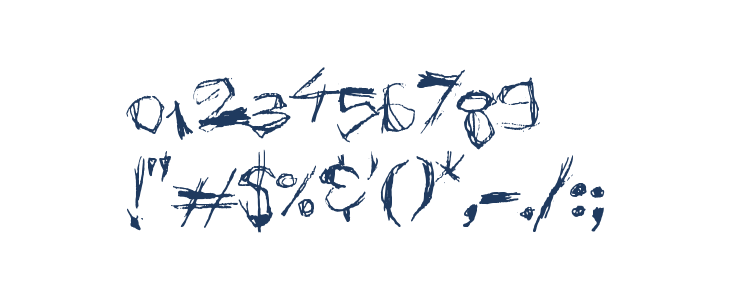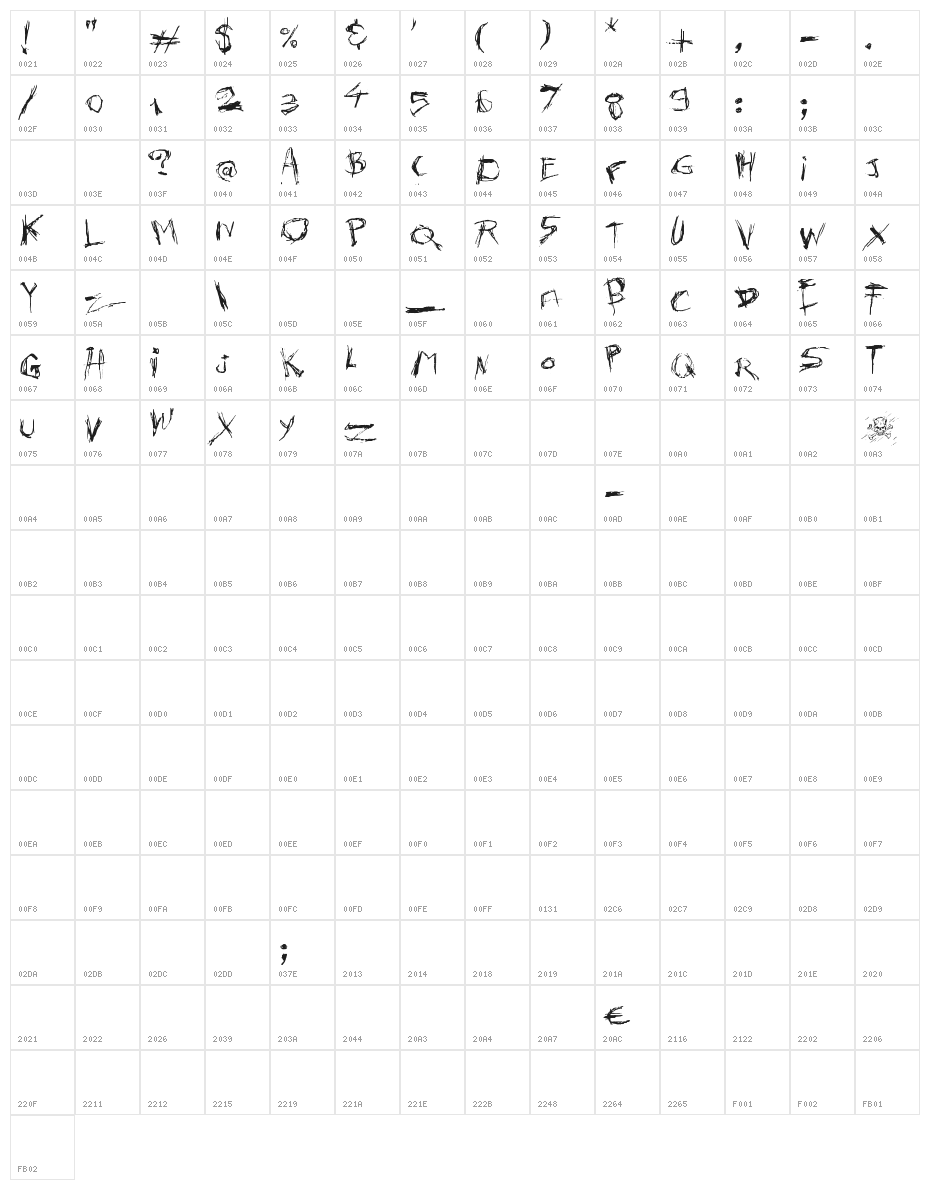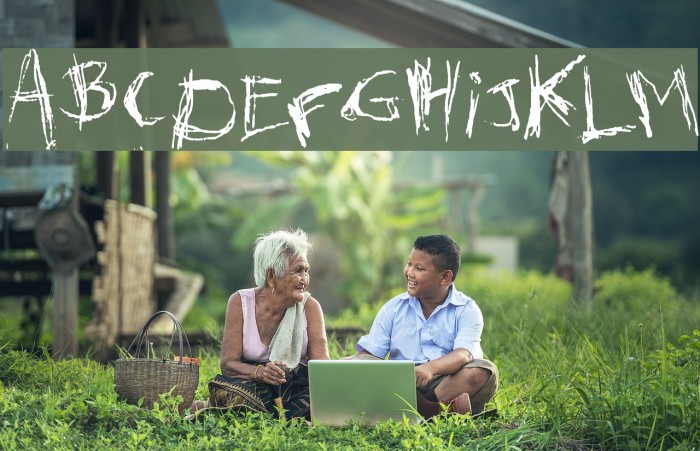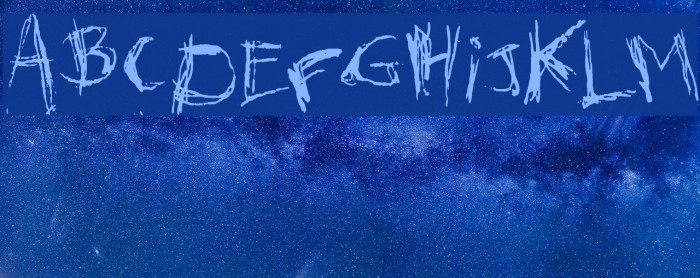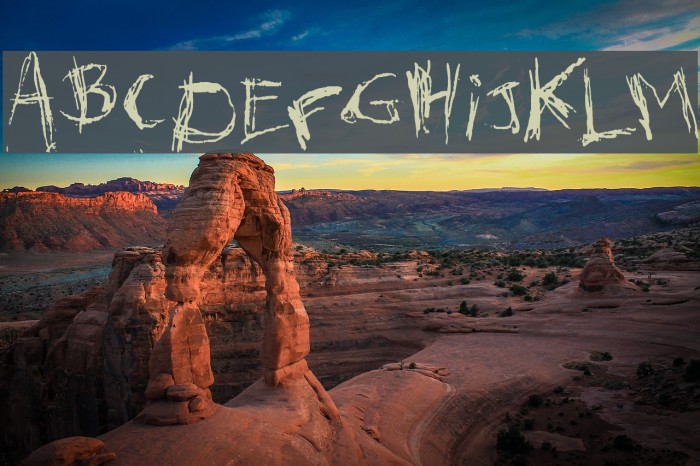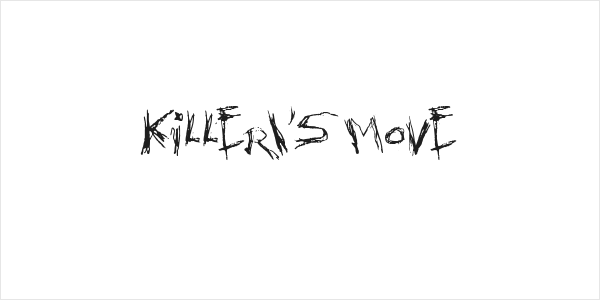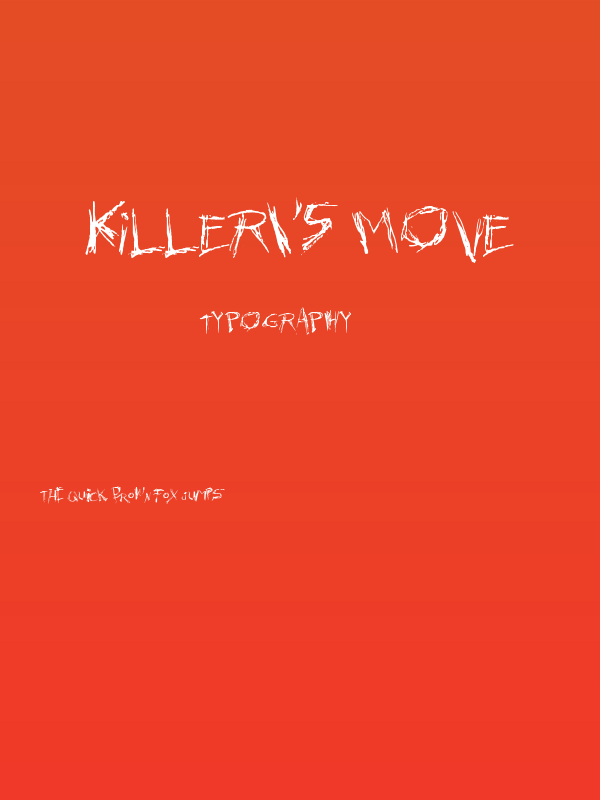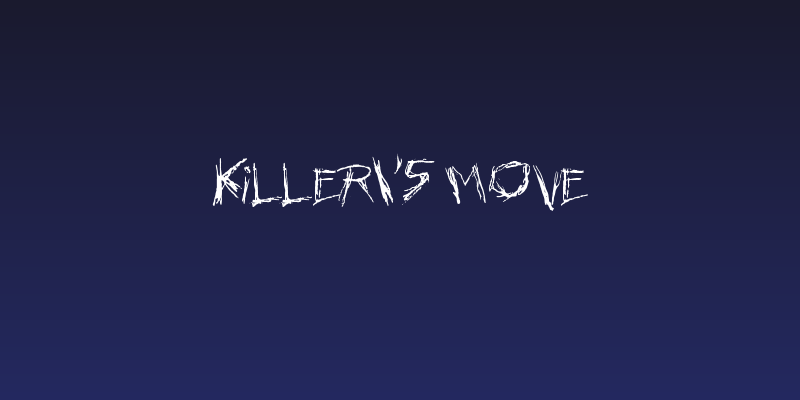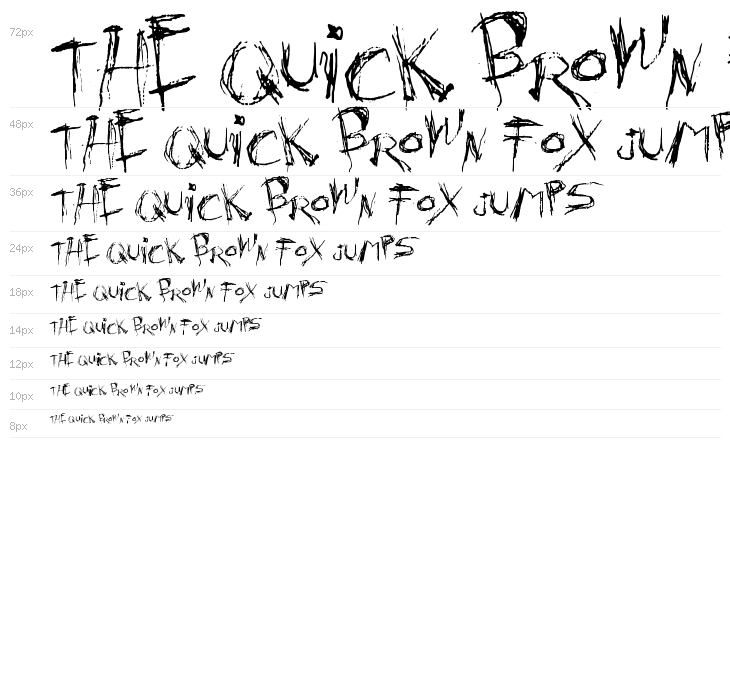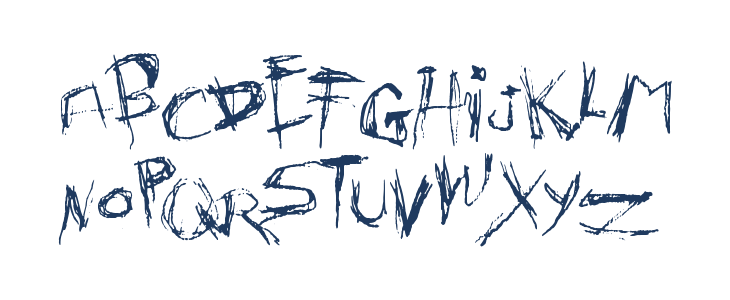
Killer's Move Font
This font features a chaotic and distressed style, reminiscent of horror or thriller themes. The characters are jagged and uneven, with a hand-drawn appearance that suggests urgency and intensity. The strokes are irregular, giving each letter a unique and unpredictable form. This font captures a sense of raw emotion and energy, making it ideal for projects that require a dramatic and edgy look. The uppercase and lowercase letters maintain a consistent style, while the numbers and special characters complement the overall aesthetic with their similarly rough and expressive design.
| Proposed Projects | Ideal for horror movie posters, thriller book covers, Halloween event flyers, and edgy graphic design projects. |